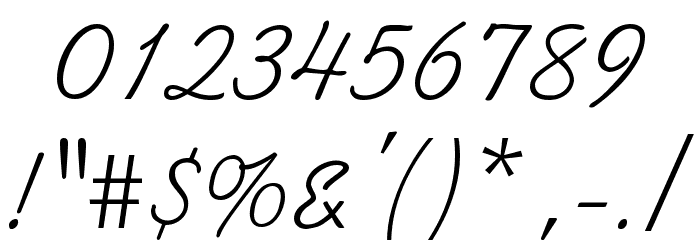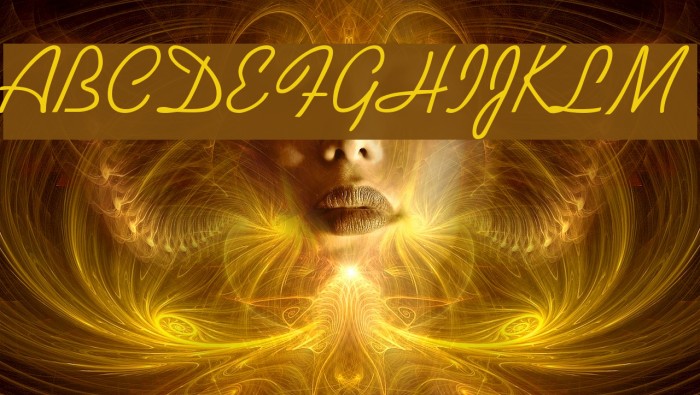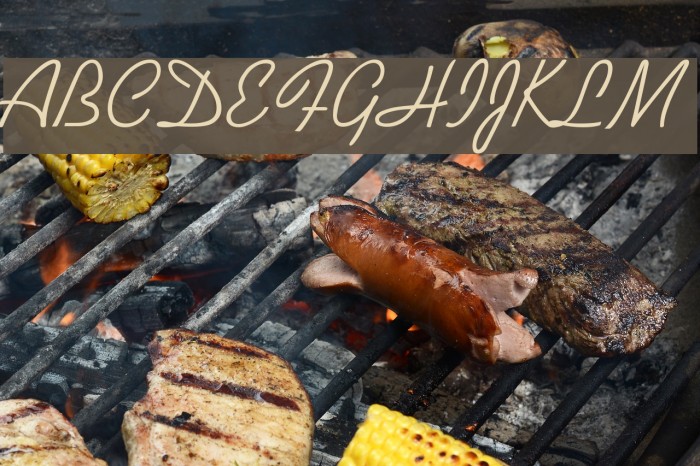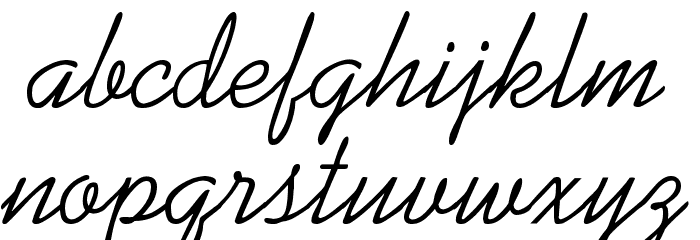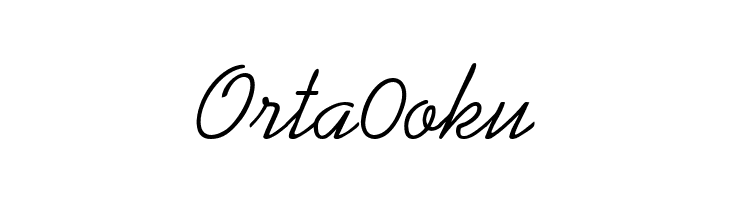
Swenson Font
Swenson Description
This font features a flowing, cursive style that mimics elegant handwriting. The characters are connected, creating a seamless and fluid appearance. The strokes are smooth and consistent, with a slight slant to the right, enhancing the natural handwriting feel. The uppercase letters are slightly larger and more ornate than the lowercase, adding a touch of sophistication. The numerals and special characters maintain the same fluidity, ensuring a cohesive look across all text. This font is ideal for projects that require a personal, elegant touch.
A cursive, handwritten-style font with smooth, connected strokes from Handwritten fonts.
- Proposed Projects: Ideal for wedding invitations, greeting cards, personal branding, and elegant stationery.
- Overall Style: Elegant
- Use Case: Logos, Invitations, Personal Branding